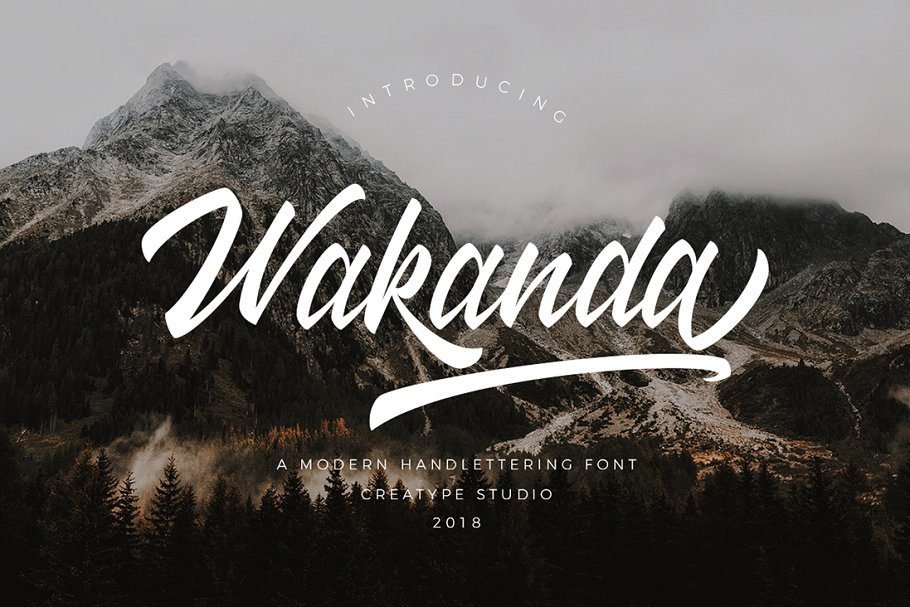
Wakanda Script Font- Freebie
Free Wakanda Script Font
This free font can be used for commercial use, and is a stylish & modern hand letter script typeface. This font will look awesome and amazing in many ways with your latest project.
Wakanda Script Font is perfect for projects such as logos & branding, invitations, stationery, wedding designs, social media posts, advertisements, product packaging, product designs, labels, photography, watermark, special events, or more.
Preview of Wakanda Script Font: